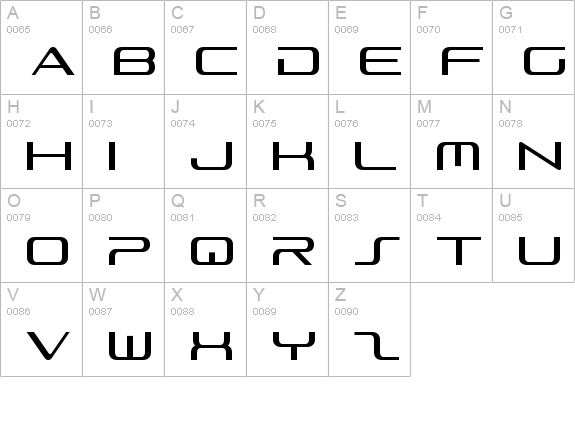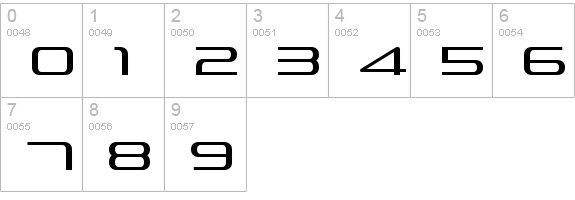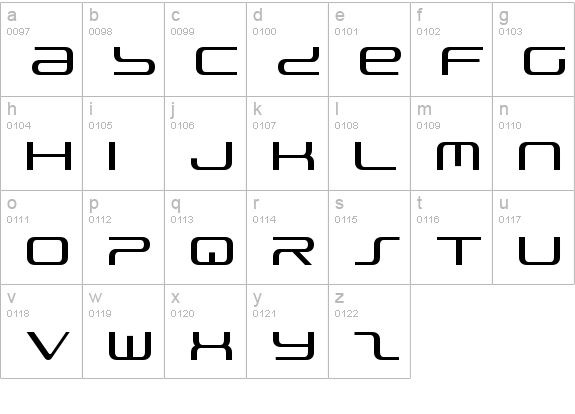
Slim Play Bold PS4 PS5 PS3 is a strong, high-contrast variant in the Slim typeface family \xE2\x80\x94 well suited to headlines, attention-grabbing titles, and strong calls-to-action.
Slim Play Bold is a sleek and modern font designed to make a bold statement. With its clean lines and sharp edges, this font exudes confidence and style. Whether you are creating a poster, logo, or website design, Slim Play Bold will surely catch the eye of your audience.